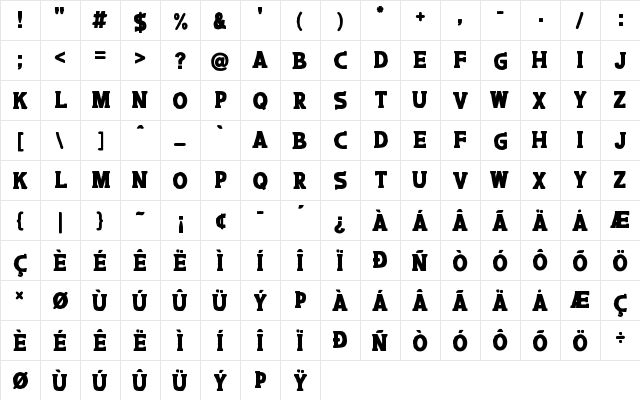
Caroos Regular
Design Context for Caroos Typeface
Caroos offers clean, dependable letterforms without strong stylistic allegiance, making it a practical choice for designers who need flexibility.